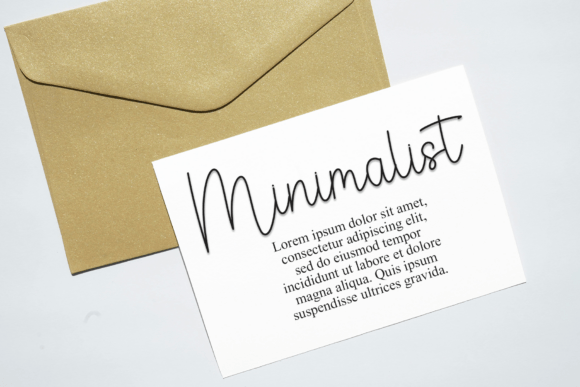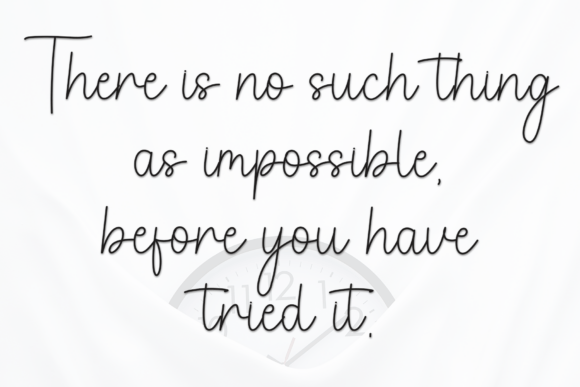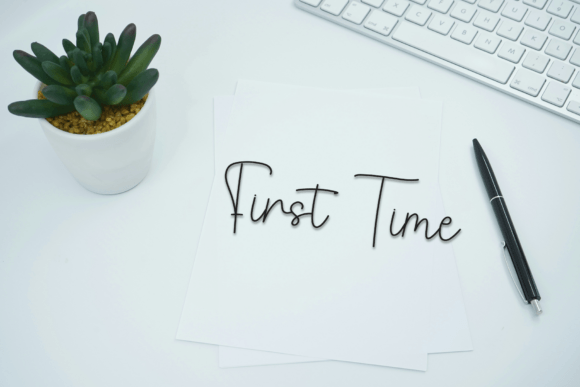
Introduction to Little Present Font
| 👤 Author | PiPi Creative |
That’s where the Little Present Font comes in – a magical script font that’s sure to add a touch of elegance to any project. Whether you’re looking for a free download or a high-quality design resource, this font is sure to impress. With its transparent background and versatility, it’s the perfect addition to any creative project. And the best part? It’s free to download, making it an accessible design resource for designers of all levels.
Key Features of Little Present Font
- High-quality design: The Little Present Font is a beautifully crafted font that can add a touch of elegance to any creative project.
- Transparent background: The Little Present Font features a transparent background, allowing you to easily combine it with other design elements.
- Perfect for creative projects: This font is ideal for use in creative projects, such as graphic design, digital art, and typography-based designs.
- High-resolution design: The font is designed at a high resolution of 300 DPI, making it suitable for use in both digital and print-based designs.
- Unique and playful style: The Little Present Font features a unique and playful style that is sure to add a touch of whimsy to any design.
Honest Review: Little Present Font
As a designer, I was excited to try out the Little Present Font for my latest creative project. I downloaded the font for free, which was a great starting point. One of the things that stood out to me was the transparent background, which made it easy to use in my design.
- What works well: ✨ The Little Present Font has a unique and playful style that’s perfect for a wide range of design projects.
- What works well: ✨ The font is high quality and has a clear, crisp appearance.
However, I did encounter some limitations while using the font. ⚠️ The font only comes in a limited range of weights and styles, which made it difficult to customize my design.
- Limitations: ⚠️ The font lacks a bold weight, which limited my design options.
- Limitations: ⚠️ The font is not suitable for large blocks of text, as it can become difficult to read.
Overall, I was impressed with the Little Present Font as a design resource. While it has some limitations, it’s a great choice for small, creative projects. I would definitely consider using it again in the future.
Designing with Little Present Font
When designing with the Little Present Font, keep in mind its transparent background. This means you can layer it over other elements without losing any details. Experiment with different font sizes and colors to create a visually appealing design.
The Little Present Font is ideal for creative projects that require a playful and festive touch. Use it for holiday cards, gift tags, or social media graphics. Its high-quality design and transparent background make it a versatile design resource.
To get the most out of the Little Present Font, experiment with different font combinations and layering techniques. Use it in conjunction with other design elements to create a cohesive and eye-catching design.